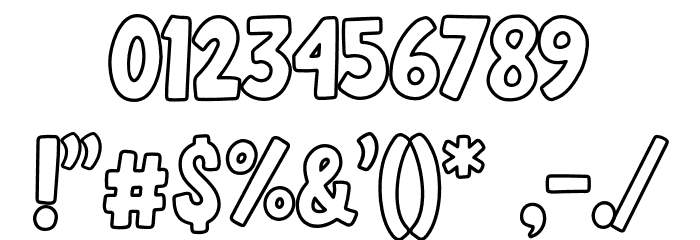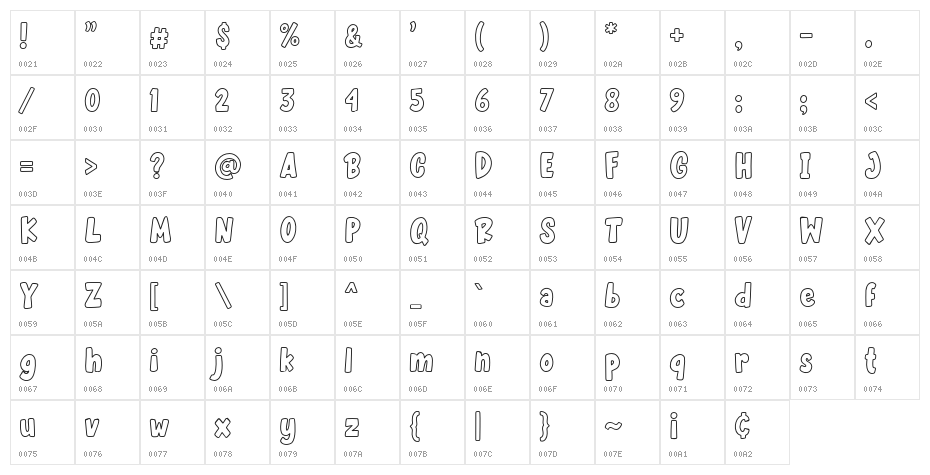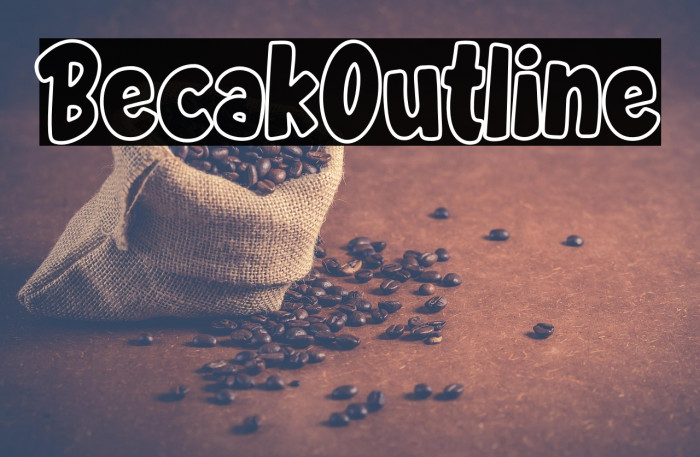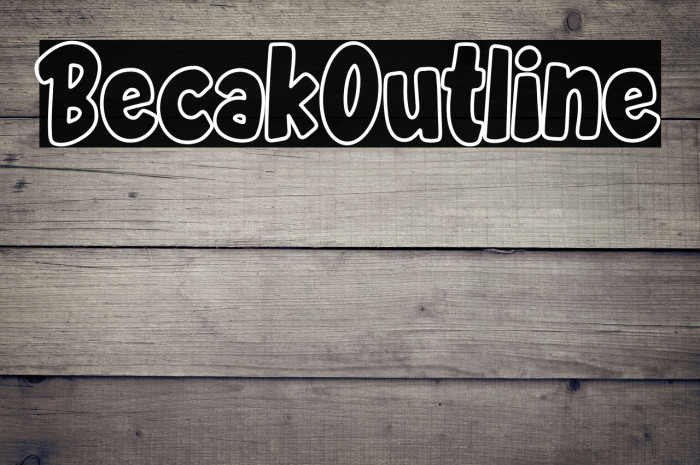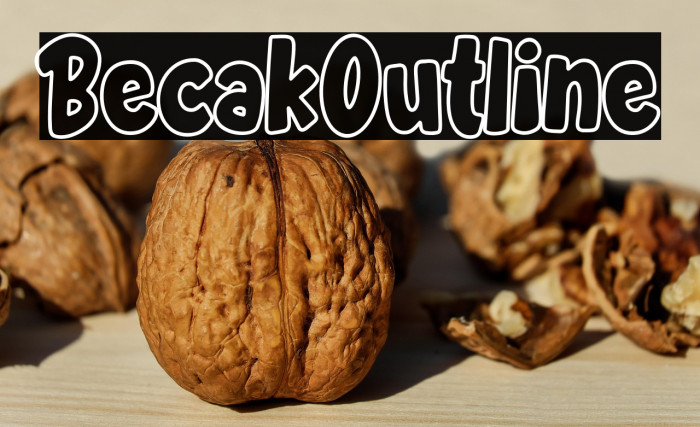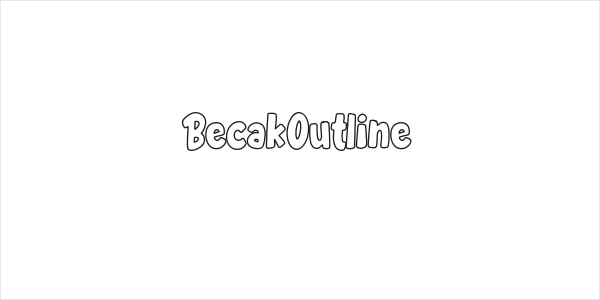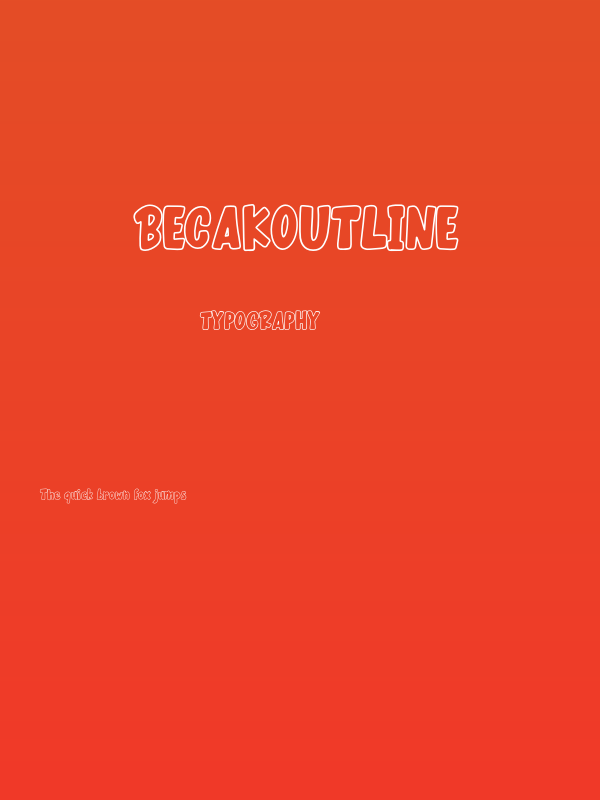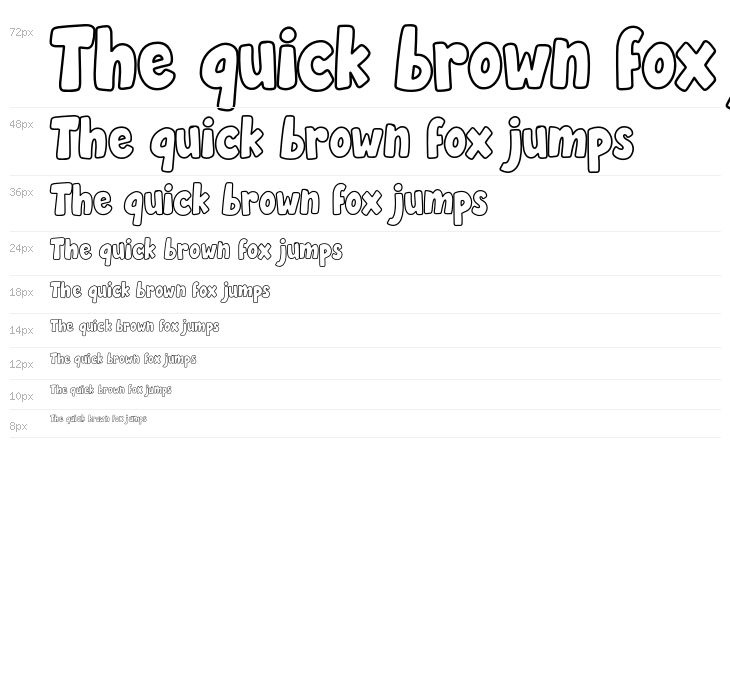
BecakOutline Font
BecakOutline Description
This playful and bold font features an outline style that gives it a unique, cartoonish appearance. The characters are rounded and slightly irregular, adding a whimsical touch. The uppercase and lowercase letters maintain a consistent style, with a slight variation in size and shape that enhances its playful nature. The numbers and special characters follow the same design, ensuring a cohesive look across all elements. This font is perfect for projects that require a fun and engaging aesthetic, such as children's books, posters, or party invitations.
| Overall Style | Playful, Cartoonish, Whimsical |
| Proposed Projects | Ideal for children's books, playful posters, party invitations, and any project needing a fun, engaging look. |